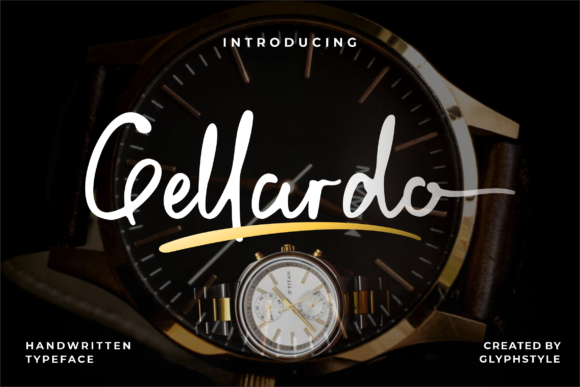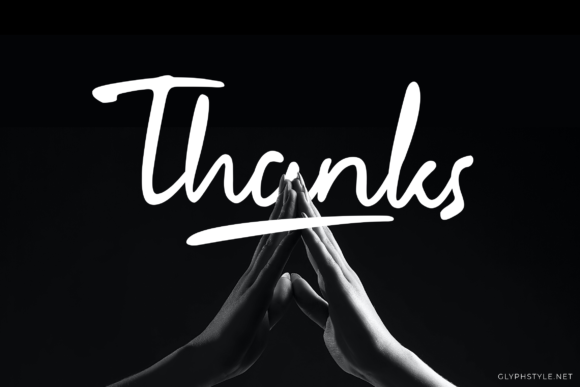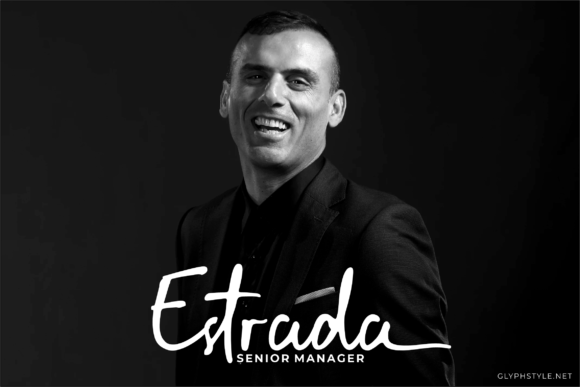
About Gellardo Font
Gellardo is a smooth handwritten font. It has a slightly thick and natural feel. Use this amazing font for branding and logos, wedding designs, social media posts, advertisements, business cards, clothing products, quotes, magazine covers, labels, photography, watermarks, invitations, stationery, and much more!